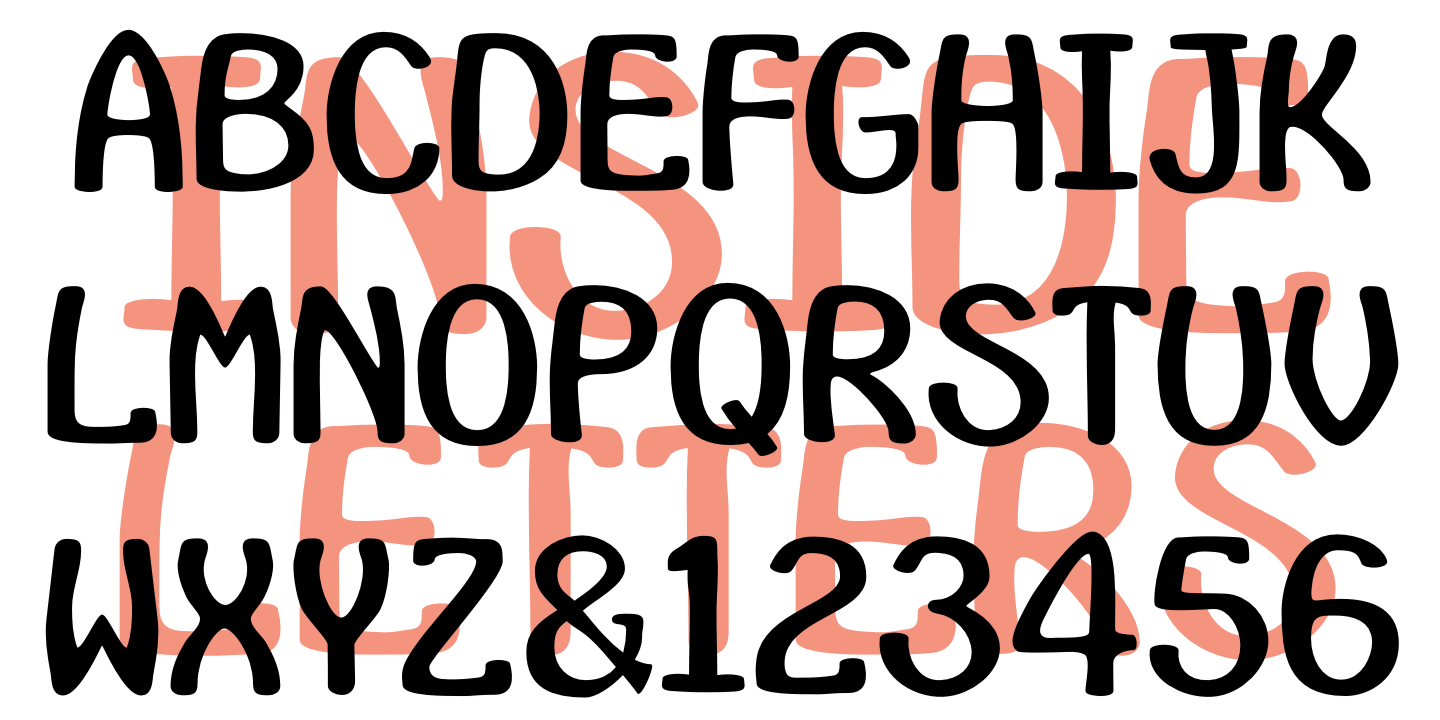
INSIDELETTERS
Designed by Robert Schenk, InsideLetters is a comic and retro font family. This typeface has two styles and was published by Ingrimayne Type.
These letters were developed to decorate the font Bowling and then were also used in the fonts Coffeemug and Teapot. Inside letters is caps-only. It is a casual and playful handwritten sans-serif font.